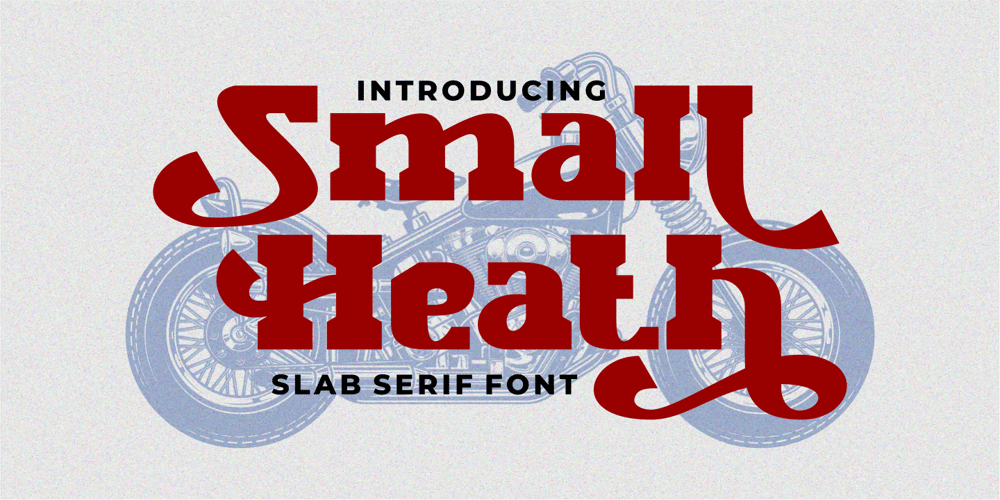
Small Heath Font Family was designed by Putra Novembria Candra Kusuma and published by Putracetol. Small Heath contains 2 styles and family package options. Small Heath – Slab Serif Font. Small Heath is a slab serif inspired by vintage american poster but made flexible enough for everyday use. Small Heath is unique font because the difference “slab” of each character. This serif is very beauty, so it makes Small Heath look amazing great.Small Heath best uses for title, invitation, heading, cover, poster, logos, quotes, product packaging, merchandise, social media & greeting cards and many moreThe alternative characters were divided into several Open Type features such as Swash, Stylistic Sets, Stylistic Alternates, Contextual Alternates, and Ligature. The Open Type features can be accessed by using Open Type savvy programs such as Adobe Illustrator, Adobe InDesign, Adobe Photoshop Corel Draw X version, And Microsoft Word. This font is also support multi language.